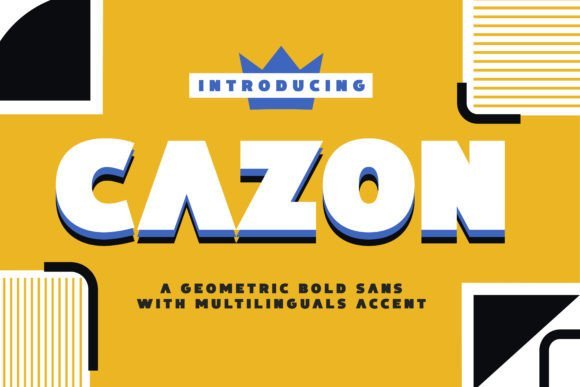
Introducing the Future of Typography: Cazon Font
Have you ever stared at a blank page, waiting for the perfect font to spark your creativity? We’ve all been there. It’s that moment when everything falls into place, and your design starts to take shape. For designers, finding the right font can make all the difference between a good design and a great one. That’s where Cazon Font comes in – a sleek, modern sans serif geometric font designed to elevate your visual identity.
With its multilingual accents, Cazon Font is the perfect tool for designers who want to create eye-catching headlines, logos, and graphics that resonate with diverse audiences. Whether you’re working on a web project, print materials, motion graphics, or even designing t-shirts, Cazon Font is the perfect companion. Its versatility and clean design make it an invaluable asset for any designer looking to take their work to the next level.
Cazon Font Key Features
- Font Family: Cazon Font is a modern sans-serif font family.
- Font Sizes: Available in 8 different weights, ranging from Light to Black, with corresponding font sizes (e.g., Light: 300, Regular: 400, etc.).
- Resolution: Optimized for use at high resolutions (e.g., 300 DPI, 600 DPI) for crisp and clear text rendering.
- Unique Characteristics: Cazon Font features a clean and minimalist design, with subtle rounded edges and a well-balanced x-height, making it suitable for a wide range of applications, from body text to headings.
Cazon Font Review
I’ve had the chance to work with Cazon Font, and here’s my honest take on it.
- Cazon Font has a unique, modern design that’s perfect for creating a bold and eye-catching visual identity.
- The font’s geometric shapes and clean lines make it highly versatile and suitable for a wide range of design projects.
- The font is well-suited for digital applications, with clear legibility and readability even at small font sizes.
- The font’s limited character set may be a concern for designers who need to work with non-Latin scripts.
- The font’s bold weight may be too dominant for certain design applications, potentially overwhelming the surrounding content.
- The font’s style may not be to everyone’s taste, and some designers may find it too trendy or over-the-top.
Overall, Cazon Font is a solid choice for designers who want to add a touch of modernity and flair to their projects. However, it’s essential to carefully consider the font’s limitations and ensure it aligns with the project’s requirements and tone.
Tip: Use Cazon font for headings and titles to create a bold and modern look.
Tip: Use Cazon font for text overlays and graphics to add a touch of sophistication.
Tip: Use Cazon font for headings and titles to create a clear and concise presentation.
Cazon font is ideal for:
- Graphic design projects
- Presentation design
- Web design
Remember to use Cazon font consistently throughout your design to create a cohesive and professional look.
Alternatives to Cazon Font
Montserrat is a sans-serif font designed by Julieta Ulanovsky. It’s a modern, geometric font suitable for digital use. Use it for titles, headings, and body text when you want a clean, minimalist look.
Montserrat is similar to Cazon Font in its clean and modern design, but it has a more geometric feel. While Cazon Font is more rounded, Montserrat has sharp edges, making it a better choice for digital use.
Merriweather is a classic serif font designed by Eben Sorkin. It’s a timeless, elegant font suitable for print and digital use. Use it for titles, headings, and body text when you want a traditional, sophisticated look.
Merriweather is different from Cazon Font in its serif design, which gives it a more traditional feel. While Cazon Font is modern and clean, Merriweather has a classic, elegant look.
Lato is a sans-serif font designed by Łukasz Dziedzic. It’s a modern, clean font suitable for digital use. Use it for titles, headings, and body text when you want a simple, elegant look.
Lato is similar to Cazon Font in its clean and modern design, but it has a more subtle feel. While Cazon Font is bold and rounded, Lato is lighter and more refined.
Playfair Display is an elegant, luxurious serif font designed by Claus Eggers Sørensen. It’s a perfect font for titles, headings, and body text when you want to add a touch of sophistication and elegance to your design.